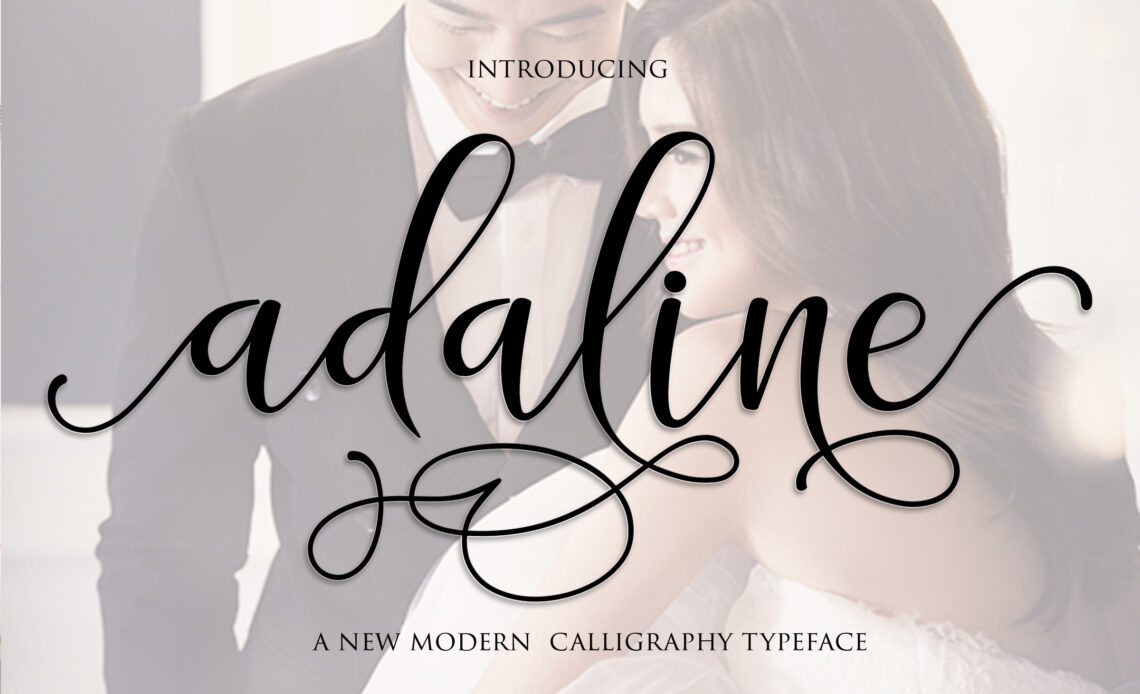
Dive into the world of elegance and creativity with Adaline Font, a captivating script font that exudes charm and sophistication. Crafted by Mrletters, this modern calligraphy-inspired font is a true masterpiece, captivating hearts with its exquisite detailing and undeniable grace.
Adaline Script possesses a distinctive handmade calligraphy style, bringing a touch of artisanal flair to your designs. Its vibrant personality shines through in every letterform, adding a touch of playfulness and warmth to your creations. Whether you're a seasoned designer or just starting your artistic journey, Adaline Script will elevate your projects with its effortless charm and timeless appeal.
Beyond its aesthetic beauty, Adaline Script is remarkably versatile, adapting seamlessly to a wide range of design applications. Its meticulously crafted characters dance across the page, lending a touch of whimsy to invitations, greeting cards, and branding materials. Unleash your creativity and let Adaline Script transform your business cards, quotes, posters, and lettering into works of art. The possibilities are endless.
With over 500 unique glyphs at your disposal, Adaline Script empowers you to explore a universe of expressive typography. Experiment with ligatures, swashes, and stylistic alternates to create captivating compositions that leave a lasting impression. Let your imagination soar as you craft designs that resonate with your audience and leave them spellbound.